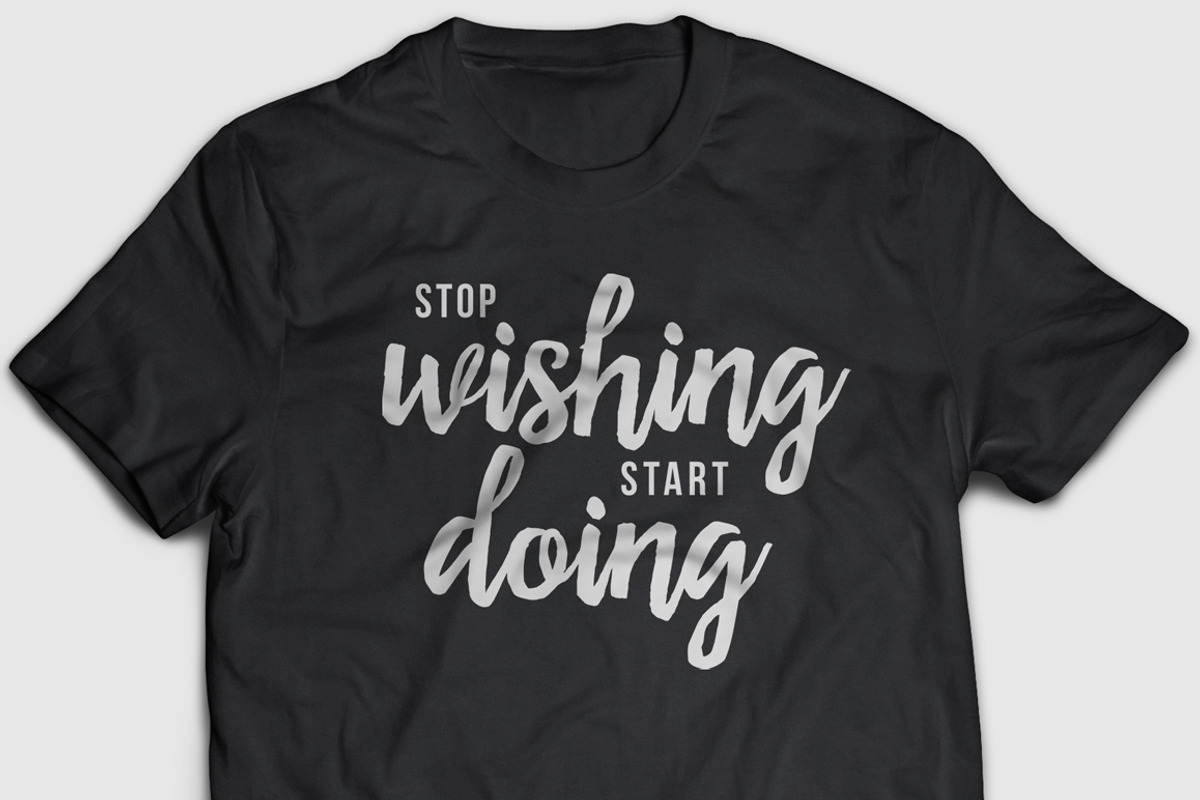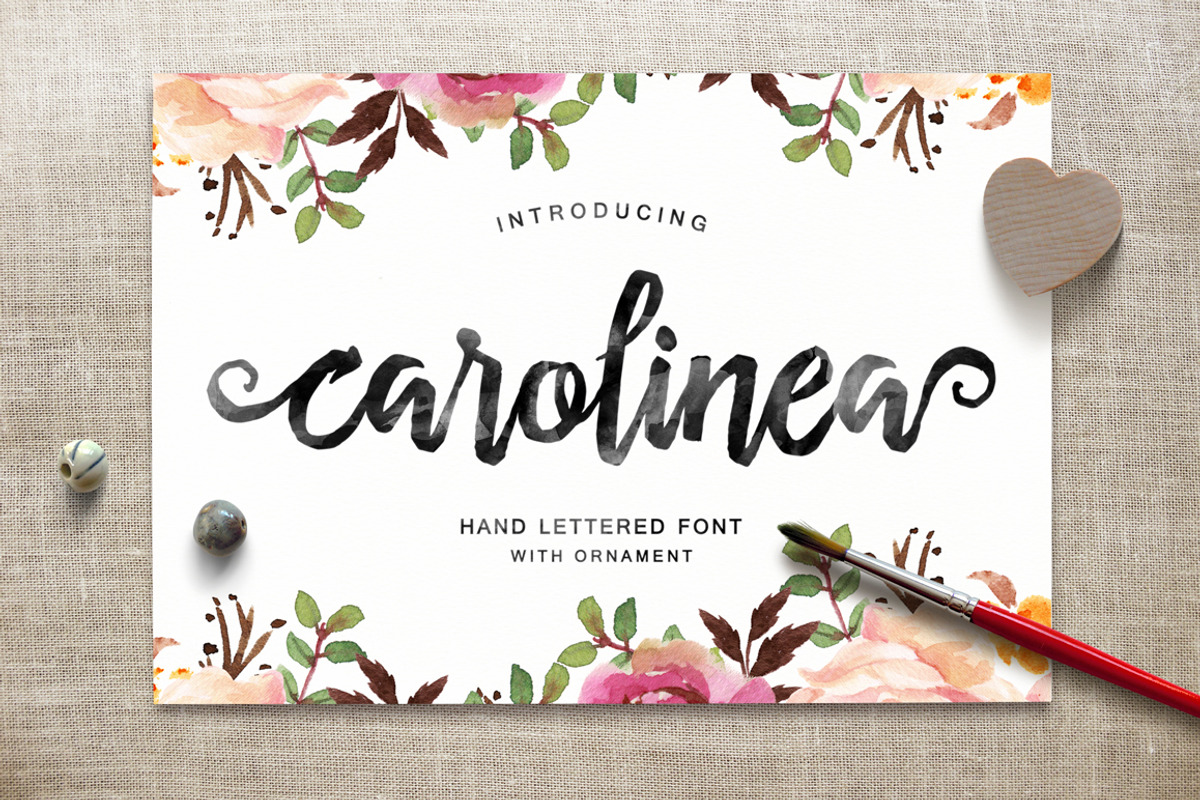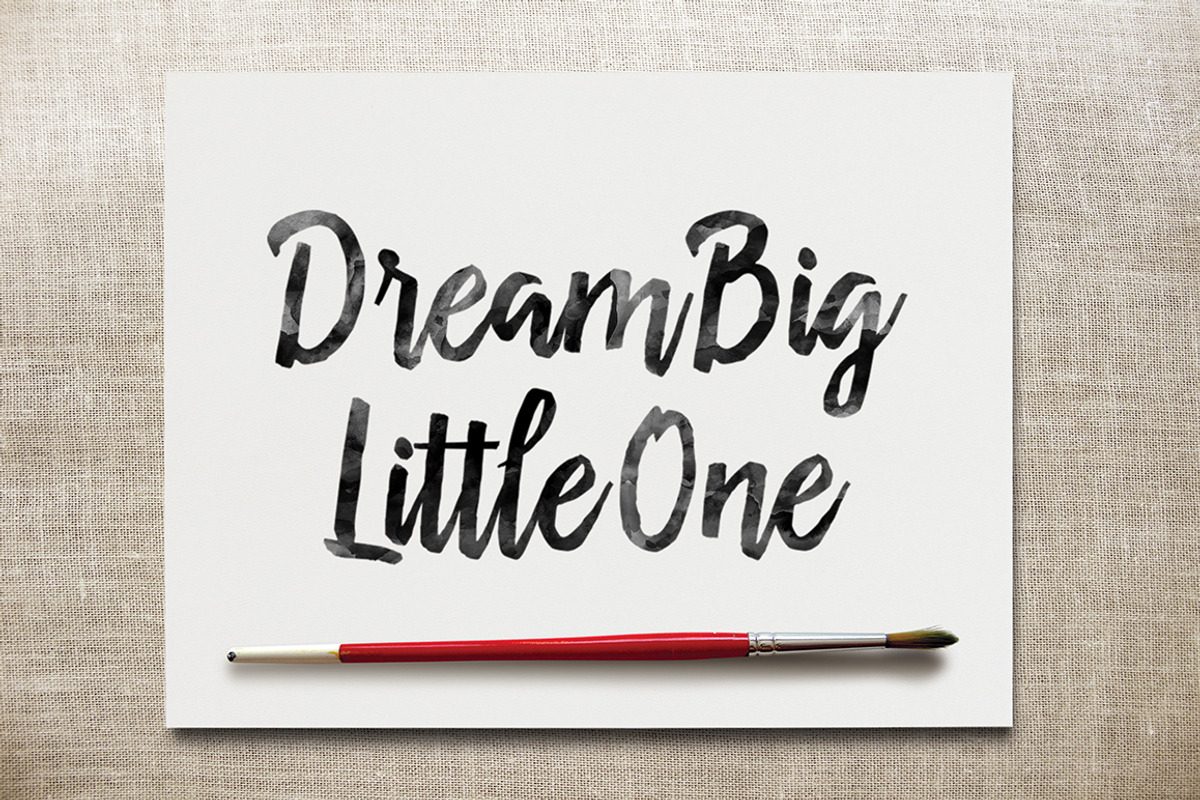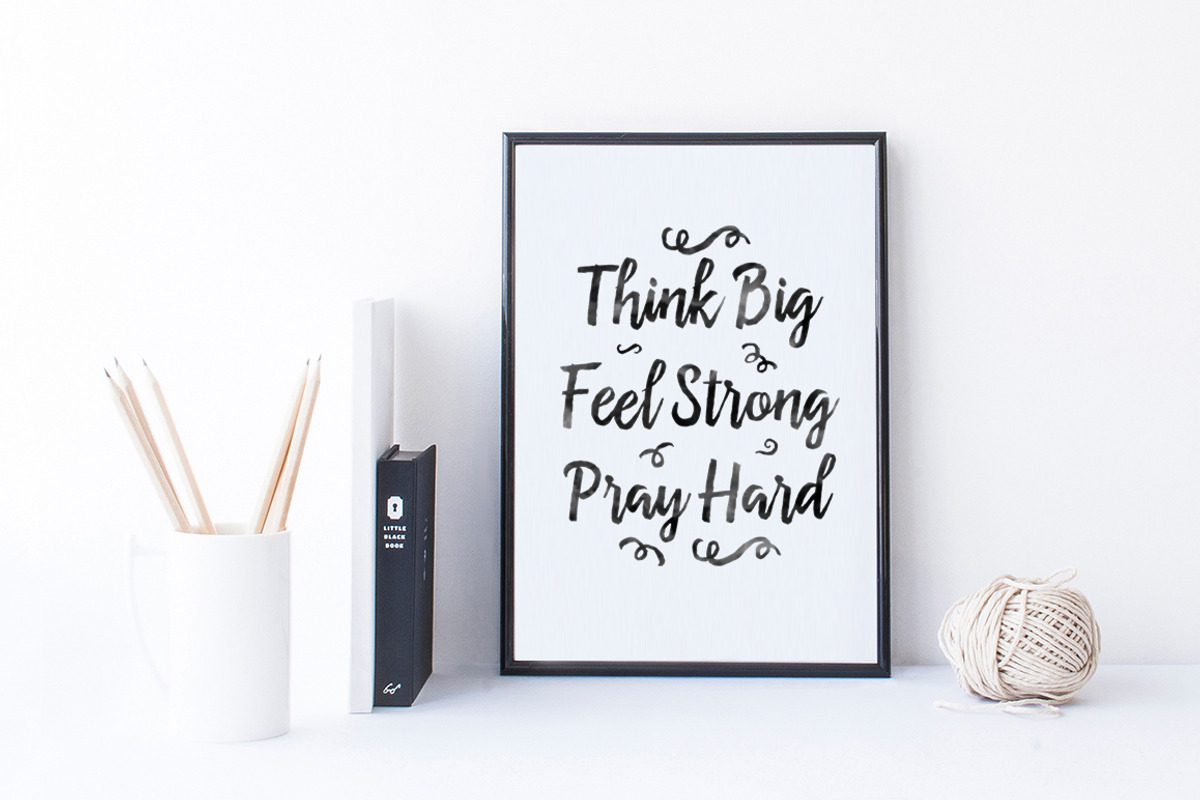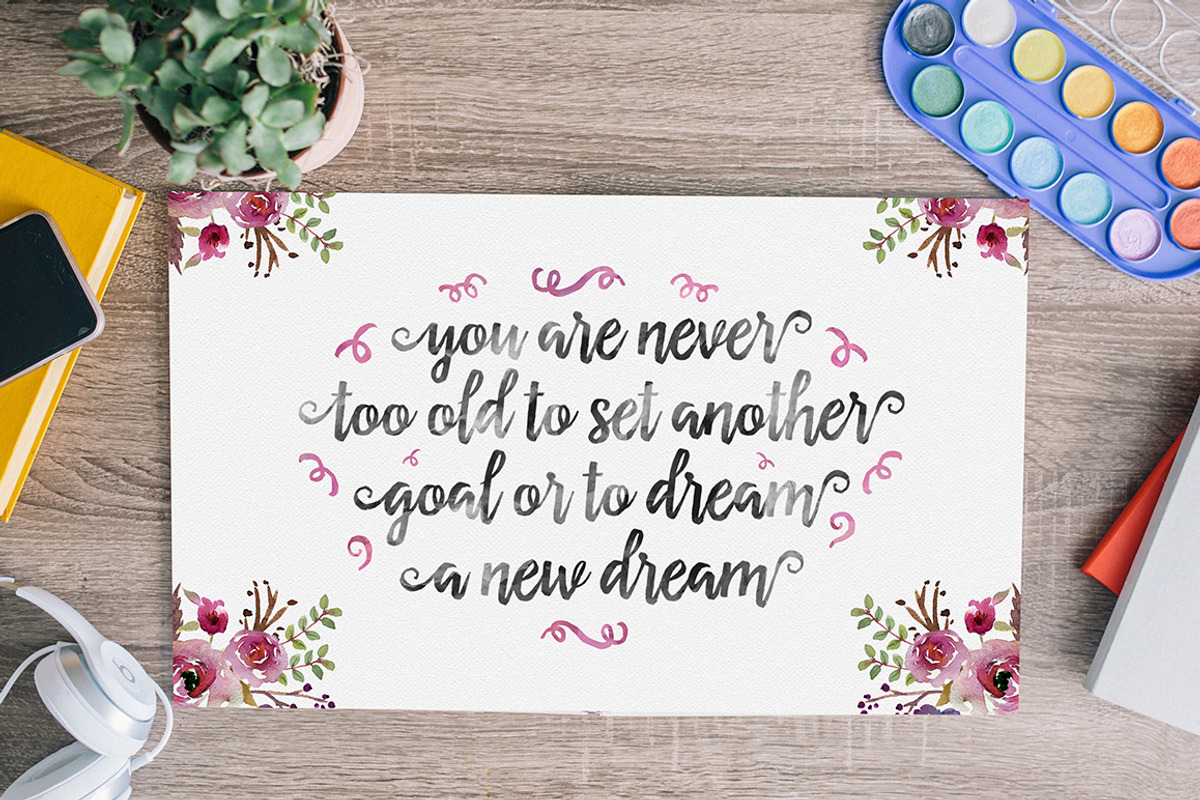
Carolinea Typeface
Carolinea Typeface by Seniors is a font selected for branding, posters, packaging, typography.
- Carolinea features 235+ glyphs and 63 alternate characters.
- including initial and terminal letters, ornament, ligatures and multiple language support.
Why Carolinea Typeface is worth a look
Carolinea Typeface by Seniors fits naturally into Branding, posters, packaging, typography.